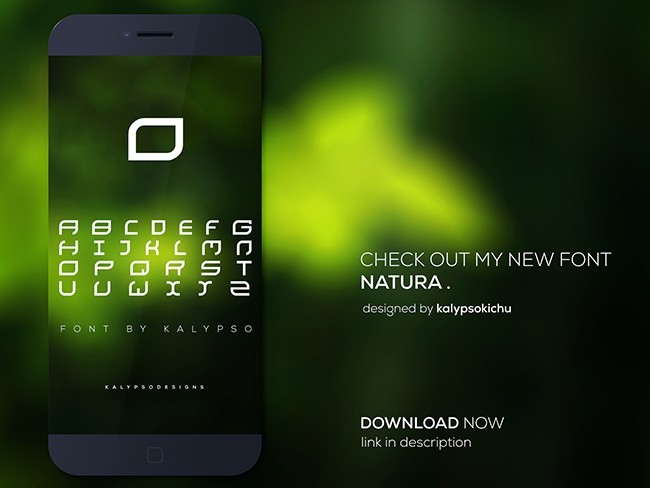
Natura is a sans serif font. The typeface is ideal for use in display sizes,photographs but also is quite legible in text and is well suited for making natural photography based identity design.